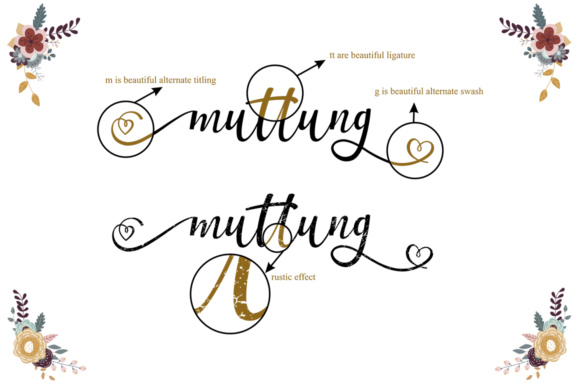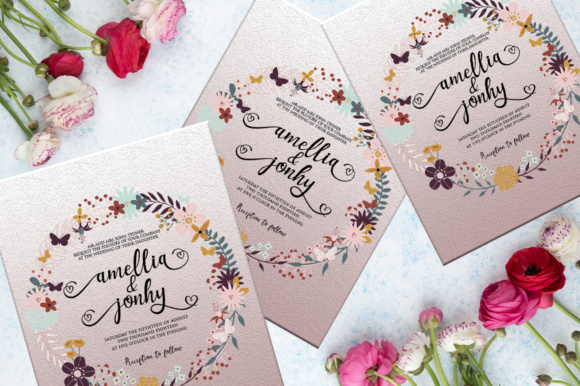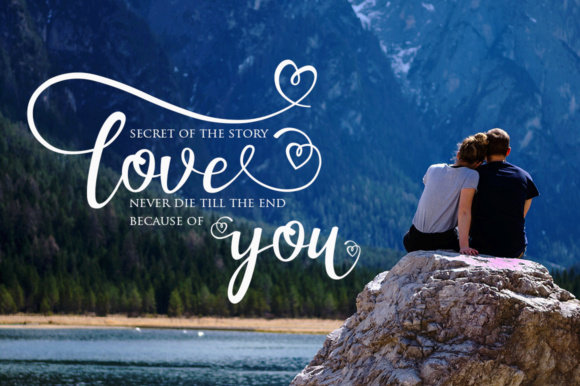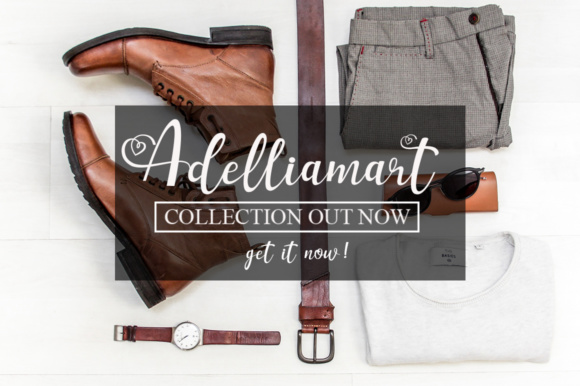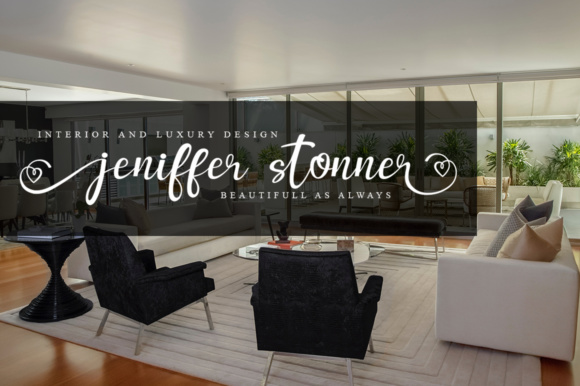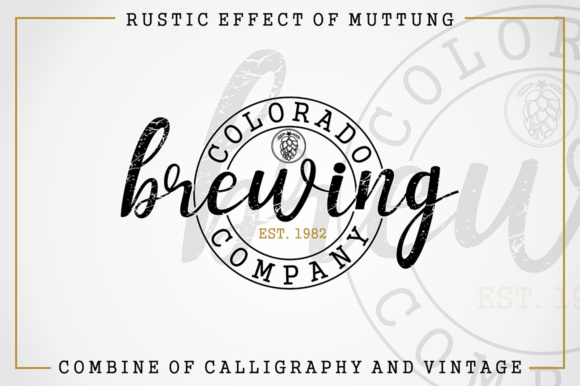
Introduction to Muttung Script Font
Muttung is a beauty font script wich comes in two styles: Muttung Solid – designed for any beauty brand and comes with many alternates to provide your requirement.
Muttung Rustic – designed for beauty brands and comes with a vintage sensation .